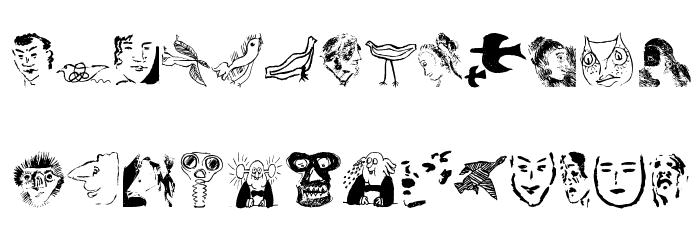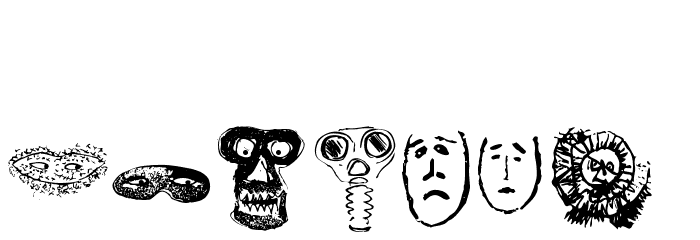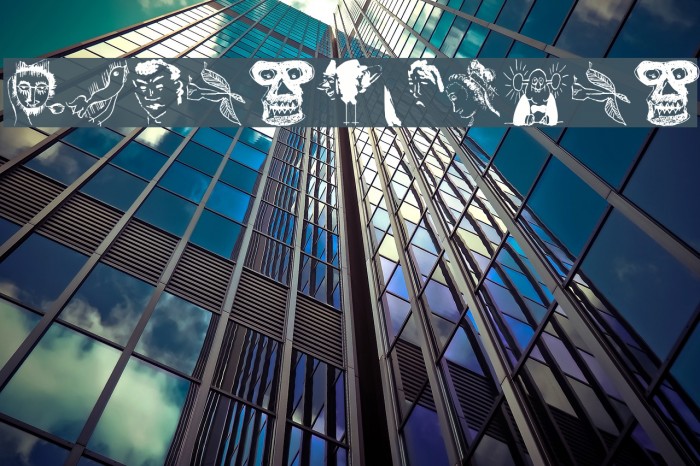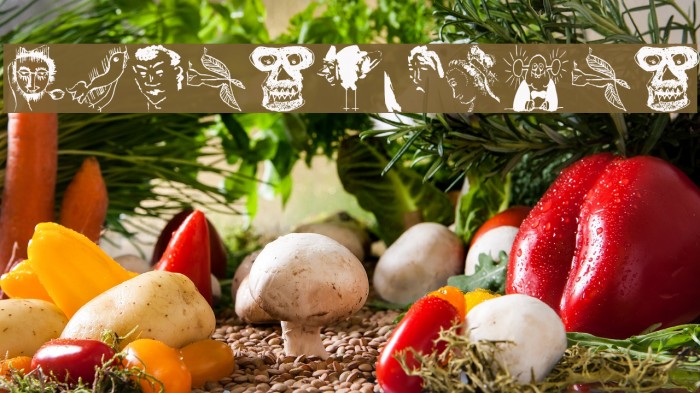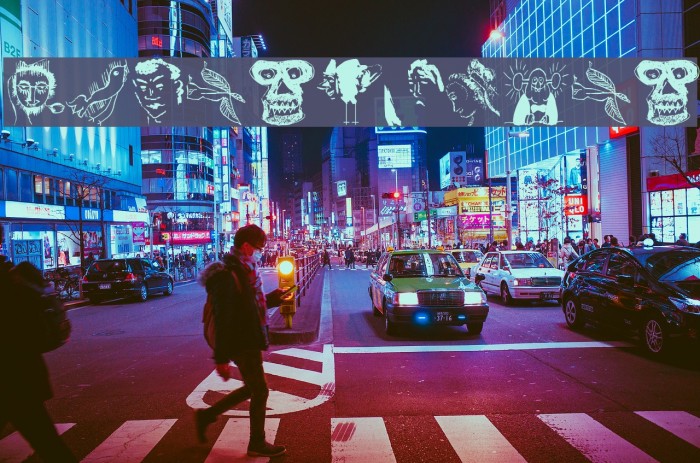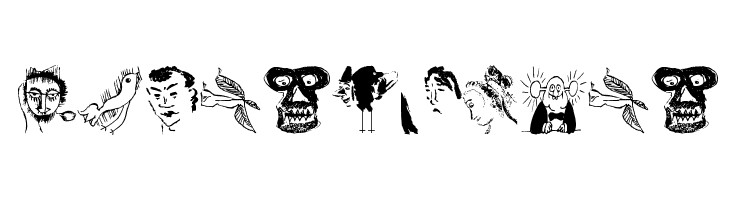
HeadsNBirds Font
This font is a unique and artistic collection of characters that blend human and avian forms. Each character is a creative illustration, featuring a mix of abstract and recognizable elements. The designs are intricate, with a hand-drawn quality that gives them a whimsical and playful feel. The characters vary in complexity, with some being simple outlines and others filled with detailed textures. This font is not meant for traditional text but serves as a decorative element, perfect for adding a touch of creativity and individuality to any project. The overall style is eclectic and imaginative, making it suitable for artistic and unconventional uses.
An artistic font featuring whimsical human and bird illustrations.
- Proposed Projects: Ideal for creative projects such as posters, album covers, art installations, and unique branding materials.
- Use Case: Logos, Art projects, Posters